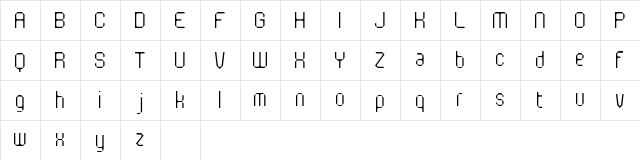
Flotsam Motorway Regular Font Preview
Flotsam Motorway Regular
Design Context for Flotsam Motorway Typeface
Flotsam Motorway offers clean, dependable letterforms without strong stylistic allegiance, making it a practical choice for designers who need flexibility.